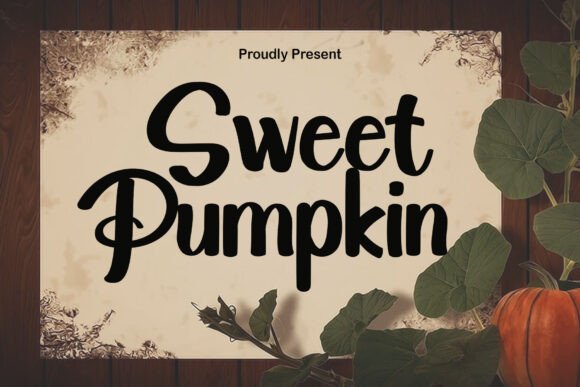
Dive into the realm of handwritten elegance with the Sweet Pumpkin Font, a script typeface that exudes charm and grace. This enchanting font is meticulously crafted to capture the essence of romance and creativity, adding a touch of magic to your digital creations.
With its graceful curves and sweeping strokes, Sweet Pumpkin Font effortlessly elevates your designs, transforming them into works of art. Its versatility knows no bounds, adapting seamlessly to a multitude of projects, from heartfelt greeting cards and invitations to eye-catching headlines and branding.
Indulge in the artistic freedom that Sweet Pumpkin Font offers, letting your imagination run wild as you explore its boundless possibilities. Whether you're a seasoned designer seeking a touch of elegance or a creative enthusiast seeking a font that speaks to your soul, Sweet Pumpkin Font is your perfect companion.
Embrace the beauty of handwritten artistry and let Sweet Pumpkin Font captivate your audience. Its romantic aura and timeless appeal are guaranteed to leave a lasting impression, making your designs truly unforgettable.